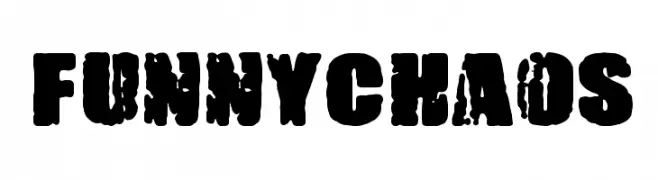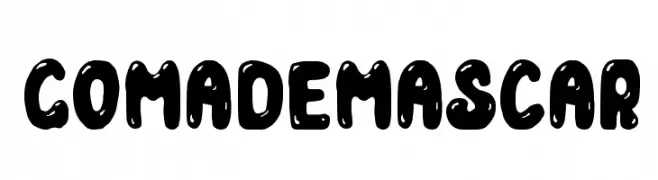
• El puto amo
A bold, graffiti-inspired font with blocky, angular characters and a rebellious urban style.
• Fairy Tales
Decorative fairy tale icon font with playful, bold silhouettes.
• FINOLIS
A bold, hand-drawn font with jagged edges and a dynamic style.
• Fresh Nieve
A bold, dripping font with a playful and artistic style.
• FUNNY CHAOS
A bold, distressed font with rough, chaotic edges and a grunge aesthetic.
• GARAGE IMPERIO
A bold, textured font with a vintage, industrial feel.
• Geometriarquia
A bold, distressed font with a vintage, industrial look.
• Global Terror
A bold, dripping font with a spooky, horror-themed aesthetic.
• Go Go Sports
A bold dingbat font with diverse sports and fitness pictograms.
• Goma de Mascar
A playful, bubble-like font with bold, rounded characters.